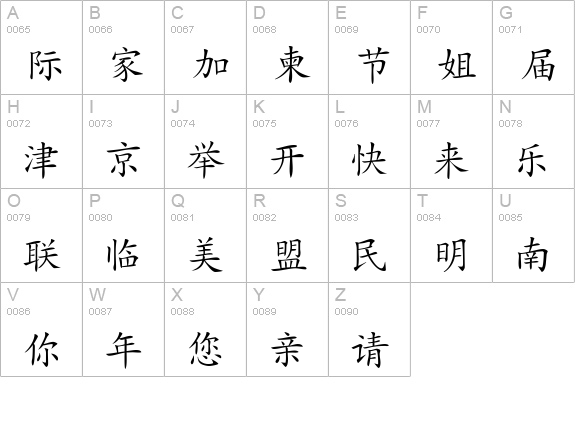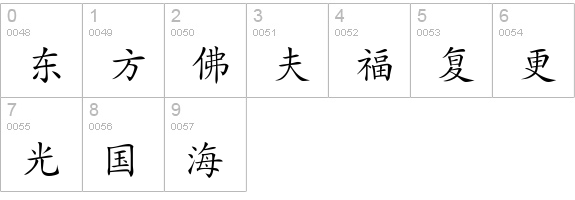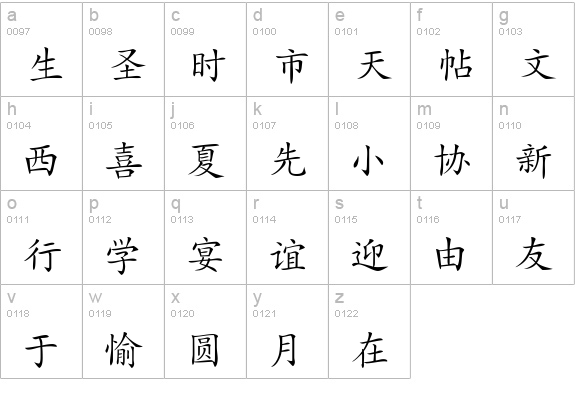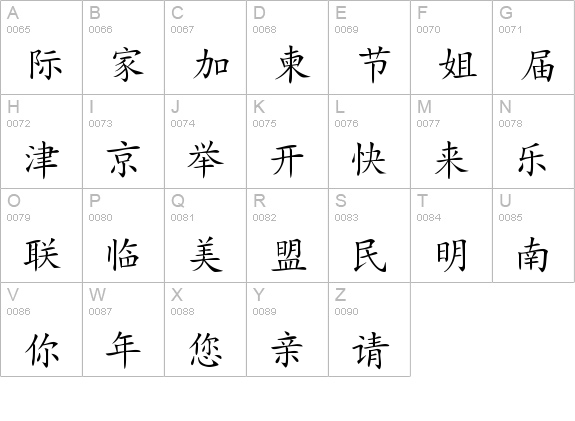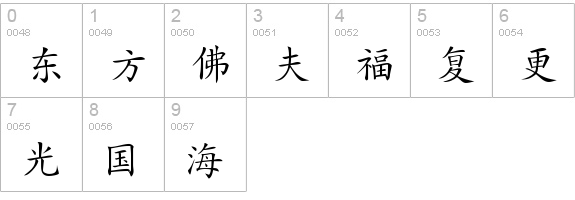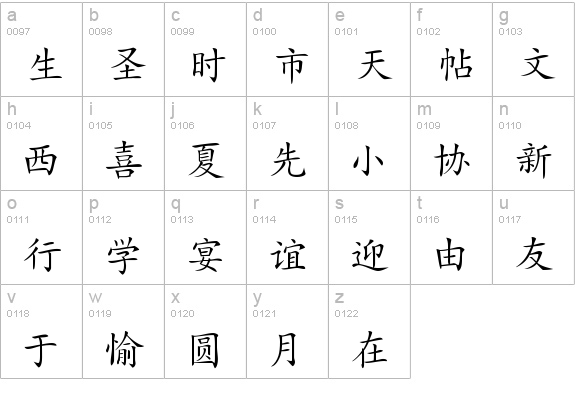
Discover the beauty of Japanese calligraphy with this exquisite Japanese font. This font captures the elegance and sophistication of traditional Japanese writing styles, making it perfect for adding a touch of eastern charm to your designs. The intricate strokes and fine details of this font will bring a sense of authenticity to your projects, whether you are creating a logo, poster, or branding materials. Best of all, this Japanese font is completely free to download at FontsMarket.com. Now you can easily access this stunning font and incorporate its unique elements into your creative work without any cost. Enhance your designs with the timeless allure of Japanese script by using this free Japanese font today.